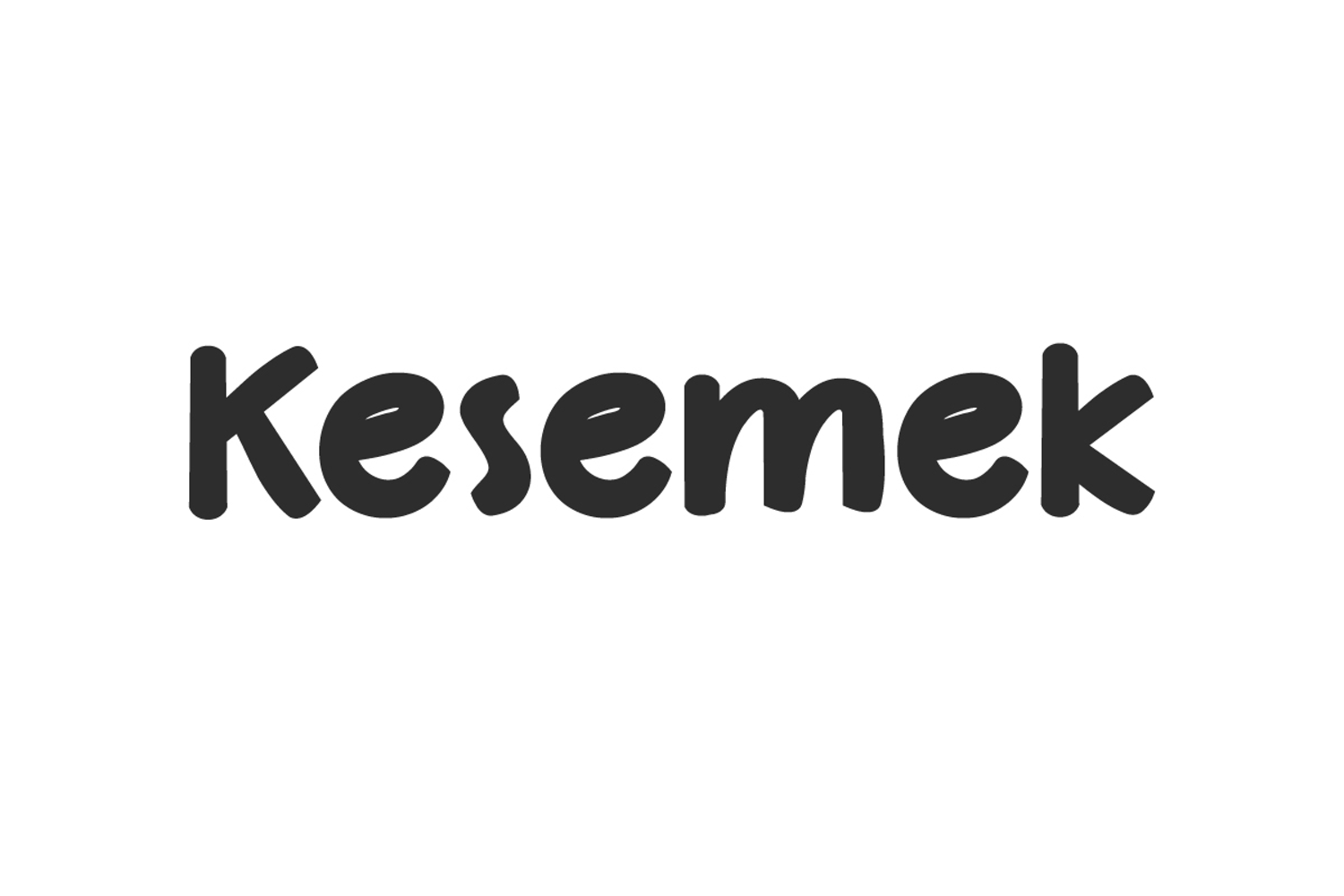
Kesemek Font
Kesemek Font is a casual and fun display font with a special bold type looks. The name of the font is taken from persimmon (using Indonesian), like in general a fruit to give a refreshing impression to anything. This will come in handy on any of your designs, such as billboard, book covers, branding logo, flyer, label, menu board, quote, screen print, signage, stationery, sticker, website headers, and much more.
Kesemek Font includes a complete set of Basic Uppercase and Lowercase Characters, Numbers, Punctuation Marks and Symbols. It is a typeface that is similar to a bubble style which makes it look cute and adorable. Use this font to add a custom touch to any design idea you can think of! Perfect for accessories and merchandise, café, content creator, cookie shop, food specialist, fresh beverage brands, graphic design, home products, photography, printing, publishing, recipe book, and more!